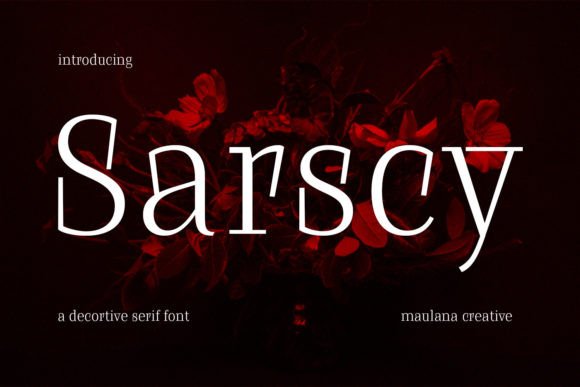
Journey through the realm of unforgettable designs with Sarscy Font - a striking and bold serif font that transforms your creations into captivating masterpieces. Its clean lines, sharp edges, and classic proportions create a powerful visual impact, leaving an indelible mark on your audience.
Sarscy Font is the ultimate choice for designers seeking to make a statement. Its commanding presence elevates your designs, captivating attention with its poised charm and unparalleled charisma. Whether you're crafting logos, headlines, posters, or branding materials, Sarscy Font is the key to unlocking your creative potential.
With Sarscy Font, you'll discover a world of boundless possibilities. Its versatility knows no bounds, adapting seamlessly to a wide spectrum of design projects. From elegant invitations and sophisticated brochures to eye-catching social media posts and dynamic websites, Sarscy Font empowers you to create designs that resonate and leave a lasting impression.
Immerse yourself in the allure of Sarscy Font and unlock a new realm of creativity. Its PUA encoding grants you effortless access to an array of glyphs and swashes, inviting you to explore the depths of your imagination and craft designs that captivate and inspire.
Don't settle for ordinary fonts - embrace the extraordinary with Sarscy Font. Its commanding presence and versatile nature will transform your designs into works of art, leaving your audience in awe. Experience the power of Sarscy Font today and elevate your designs to new heights.